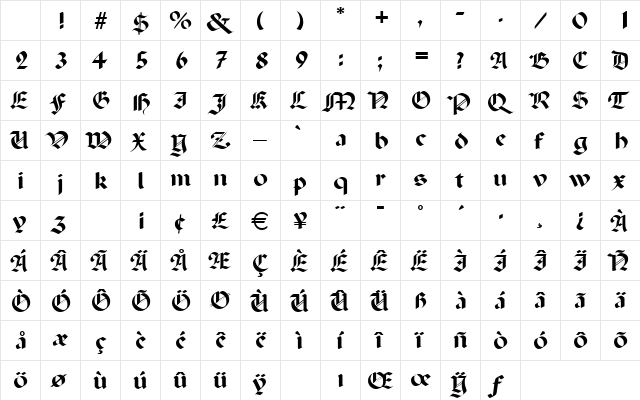
P650-Blackletter draws on the rich tradition of blackletter calligraphy, with dense, angular strokes that evoke medieval manuscripts and old-world craftsmanship.
Font Pairing: Pair with a clean neutral sans-serif for body copy to let P650-Blackletter's character lead without overwhelming the composition.
Pro Tip: Reserve P650-Blackletter for display and logo use - pair it with a clean sans-serif for body copy to prevent the composition from feeling oppressive.